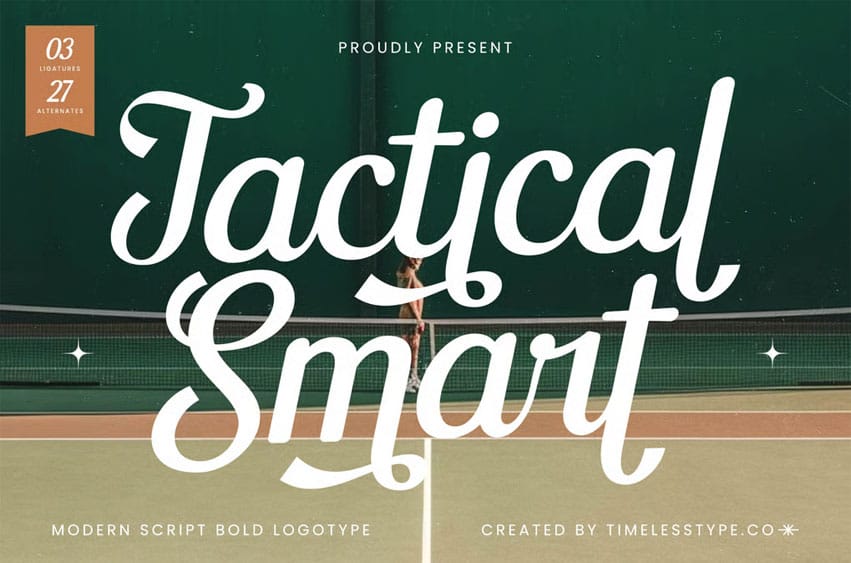
Tactical Smart Font is a modern script bold logotype font with smooth curves, expressive strokes, and a sporty handwritten flow. Designed to deliver confidence and style, this script blends bold elegance with high–energy movement—perfect for branding, sports, tennis-themed graphics, lifestyle logos, product packaging, signatures, editorial titles, and promotional visuals.
With 3 ligatures and 27 stylistic alternates, Tactical Smart offers flexible customization for dynamic and eye-catching typography. Its clean, bold strokes make every word stand out with a professional yet playful character.